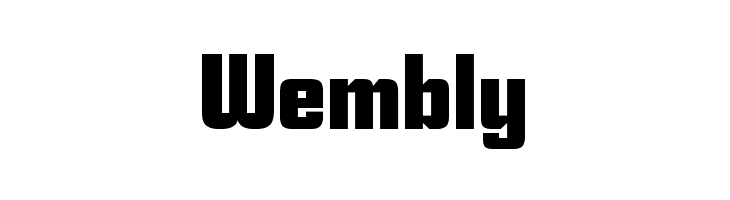
Olla_Julietta Font
- Font: Olla_Julietta
- Weight: Normal
( Fonts by Harold Lohner - www.haroldsfonts.com )
A bold, modern font with blocky, uniform characters.